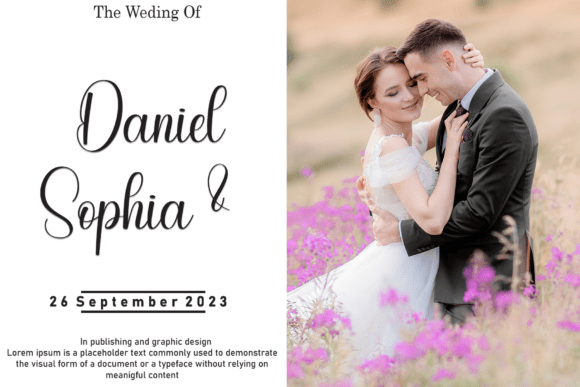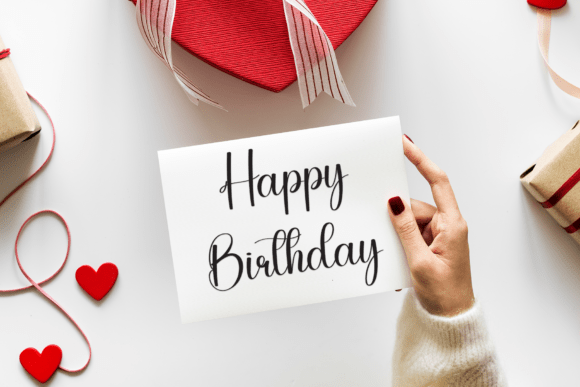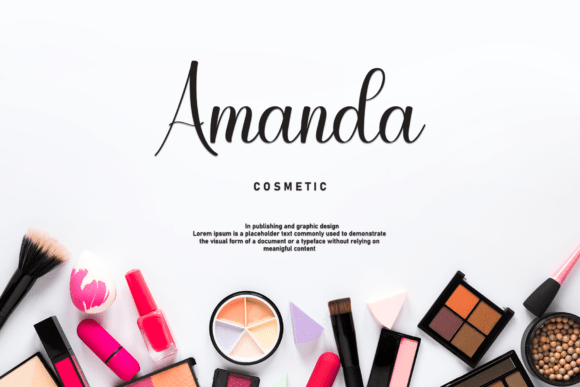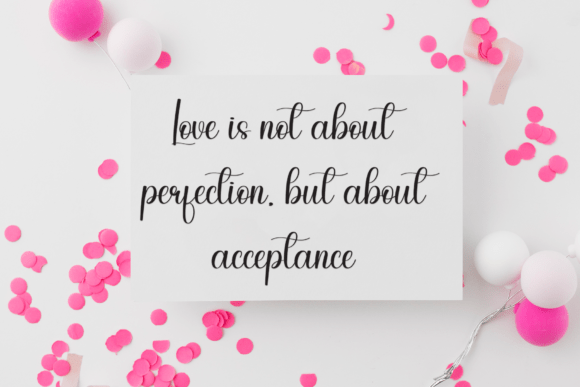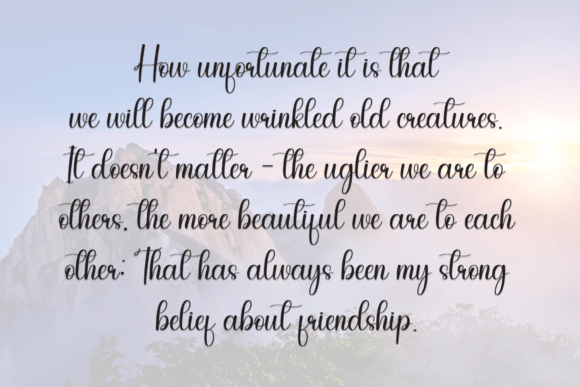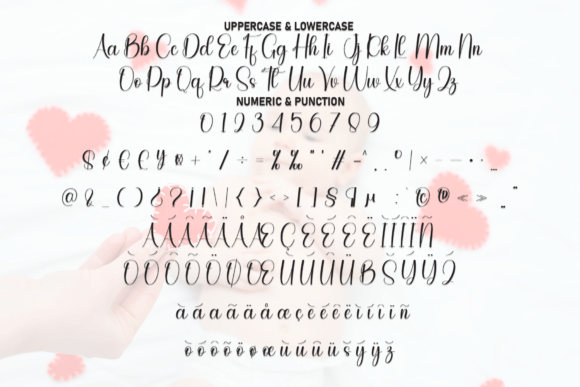
The Birth of a Masterpiece: Unlocking the Magic of Babylove Font
Have you ever stumbled upon a font that sparks pure joy and creativity? For many designers, that moment of discovery is like finding a treasure trove of inspiration. It’s the instant when the possibilities seem endless, and the excitement of bringing a new idea to life takes over. That’s exactly what the Babylove Font embodies – a captivating display font that radiates effervescence and unrestrained creativity.
Handcrafted to perfection, this enticing typeface beams with allure and charm, effortlessly infusing your creative ensemble with vibrant cheer and character. Whether you’re designing classy wedding invitations or emotive personalized cards, the Babylove Font superbly enhances any artistic pursuit yearning for a dash of joy. Its unique vibrancy transcends beyond simply showcasing your creations, breathing life into them and enabling your designs to truly flourish.
Babylove Font Key Features
- Unique Characteristics: The Babylove Font features a playful, cursive script with rounded edges and gentle curves, making it perfect for use in children’s books, educational materials, and other applications where a friendly, approachable tone is desired.
- Font Weight and Style: The font is available in a single weight and style, with a subtle variation in width to create a sense of movement and flow.
Babylove Font Review
I recently had the chance to work with the Babylove Font, and I must say it’s a mixed bag. While it’s a cute and playful font, there are some limitations that may make it less suitable for certain projects.
- ✨ The font is perfect for creating a whimsical and childlike atmosphere, making it ideal for nursery decor, children’s books, or any project that requires a youthful vibe.
- ✨ The font is highly customizable, with a range of styles and sizes available. This makes it easy to adjust the font to fit your specific needs.
- ✨ The font is well-suited for digital projects, such as social media graphics, website headers, and more.
Limitsations:
- ⚠️ The font can appear too playful or childish for certain projects, making it less suitable for more formal or professional applications.
- ⚠️ The font may not be as legible at smaller sizes, which can make it difficult to read in certain contexts.
- ⚠️ The font is not as versatile as some other fonts, and may not work as well in certain color schemes or design styles.
The Babylove Font is a fun and playful addition to any design project. While it may have some limitations, it’s perfect for projects that require a youthful and whimsical vibe. With its high level of customization and versatility, it’s a great choice for designers who want to add a little extra personality to their work.
Practical Application Guide for Babylove Font
Tips for Getting the Most Out of Babylove Font
Here are a few tips to help you get the most out of the Babylove Font:
- Use it for titles and headings to add a touch of elegance.
- Combine it with other fonts for a unique and playful look.
The Babylove Font is perfect for:
- Branding and marketing materials for businesses that target families.